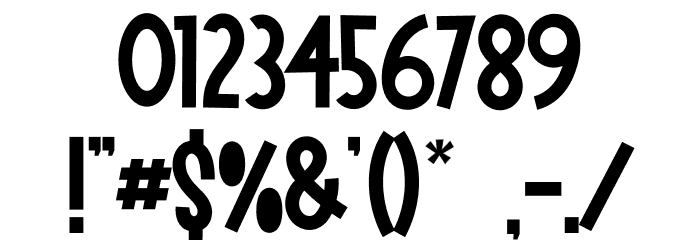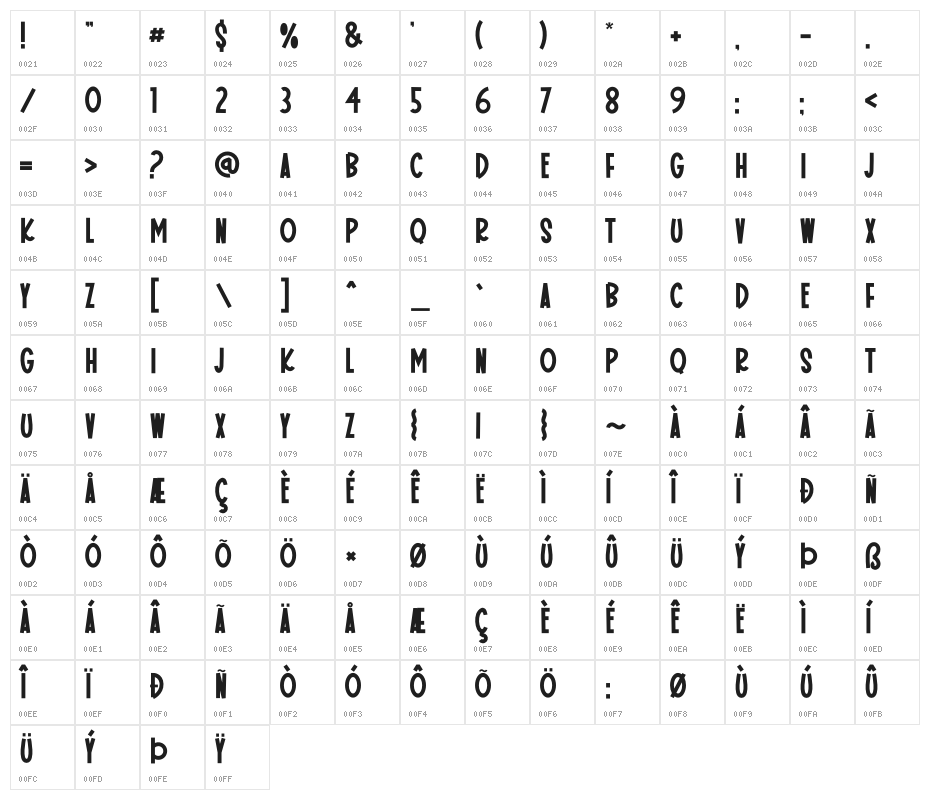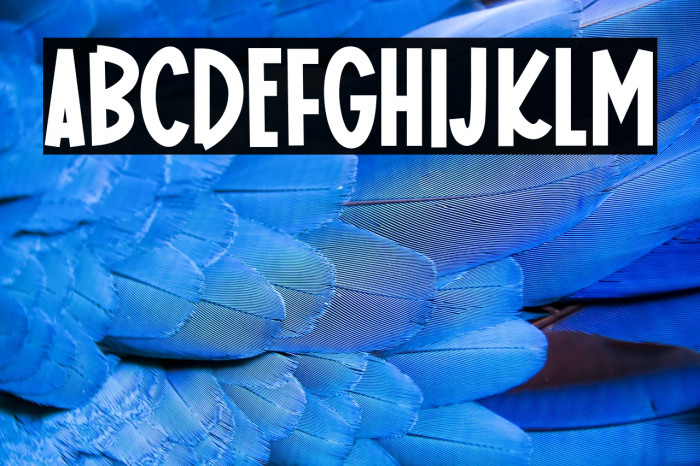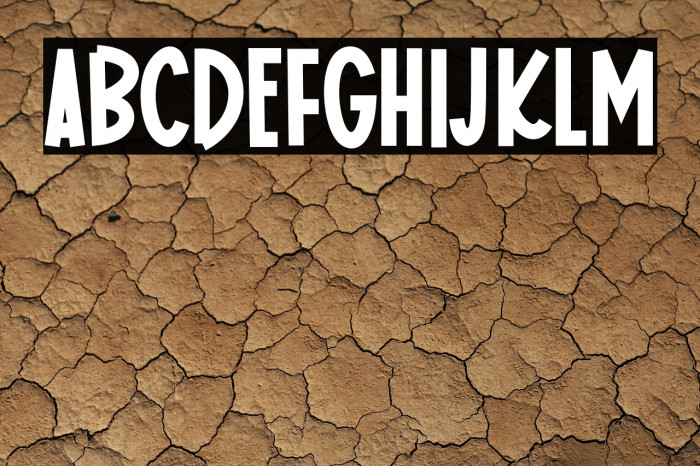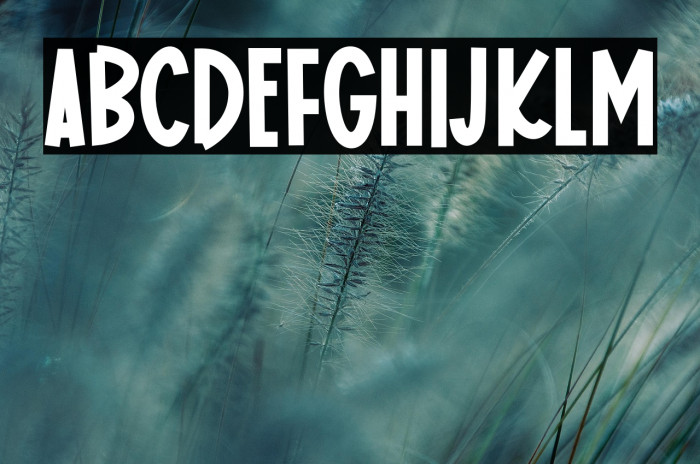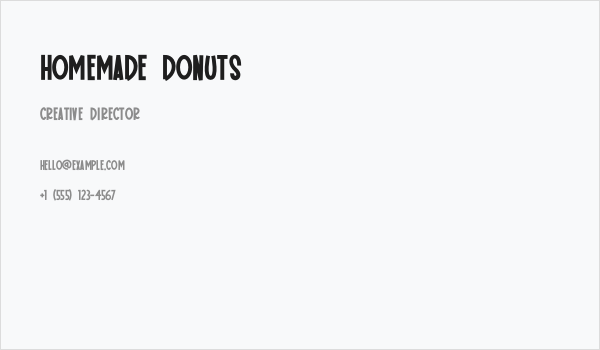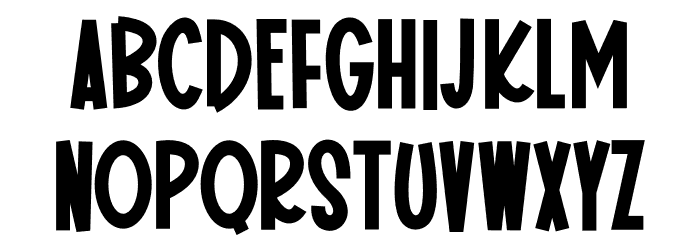
Homemade Donuts Font
Homemade Donuts Description
This font features bold, playful characters with a slightly condensed appearance. The letters have a whimsical, hand-drawn quality, making them ideal for projects that require a fun and informal touch. The uppercase and lowercase letters maintain a consistent style, with rounded edges and a slight tilt that adds to the casual feel. Numbers and special characters are designed with the same playful aesthetic, ensuring a cohesive look across all text elements. The font's boldness and unique character shapes make it stand out, perfect for eye-catching designs.
| Proposed Projects | Ideal for children's books, playful branding, posters, and creative invitations. |